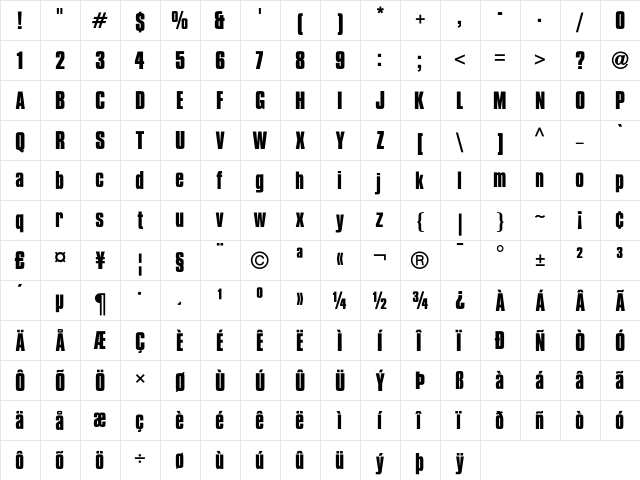
CompactaICG Bold Font Preview
CompactaICG Bold
Design Context for CompactaICG Typeface
CompactaICG takes a measured approach to typography — its balanced proportions and neutral character make it a reliable workhorse for both digital and print work. Its bold stroke weight gives it real presence on the page. The condensed width makes it efficient for tight spaces without sacrificing legibility.